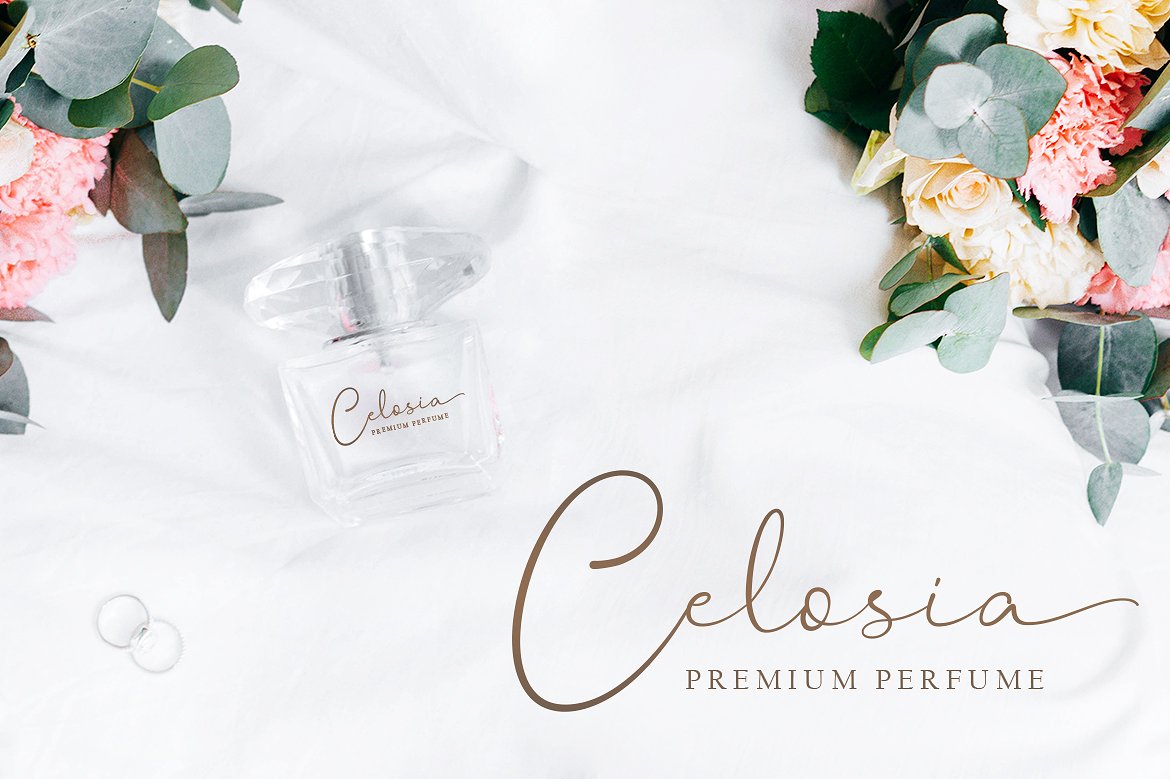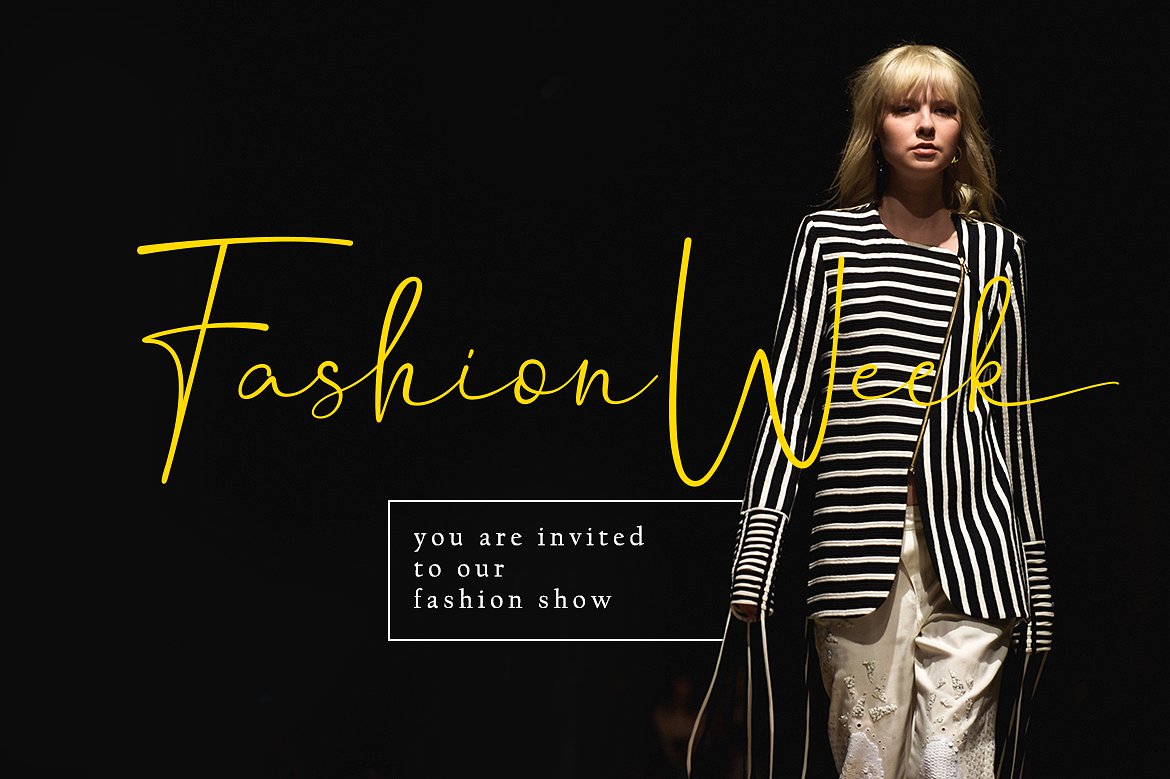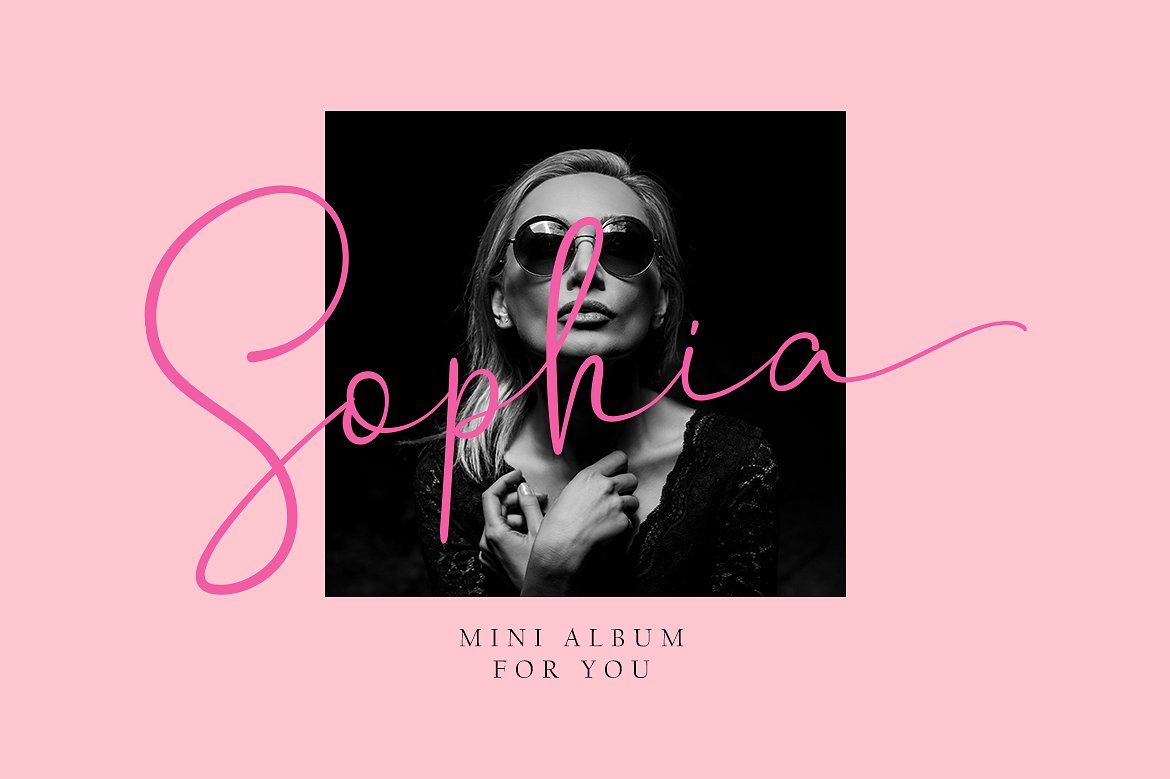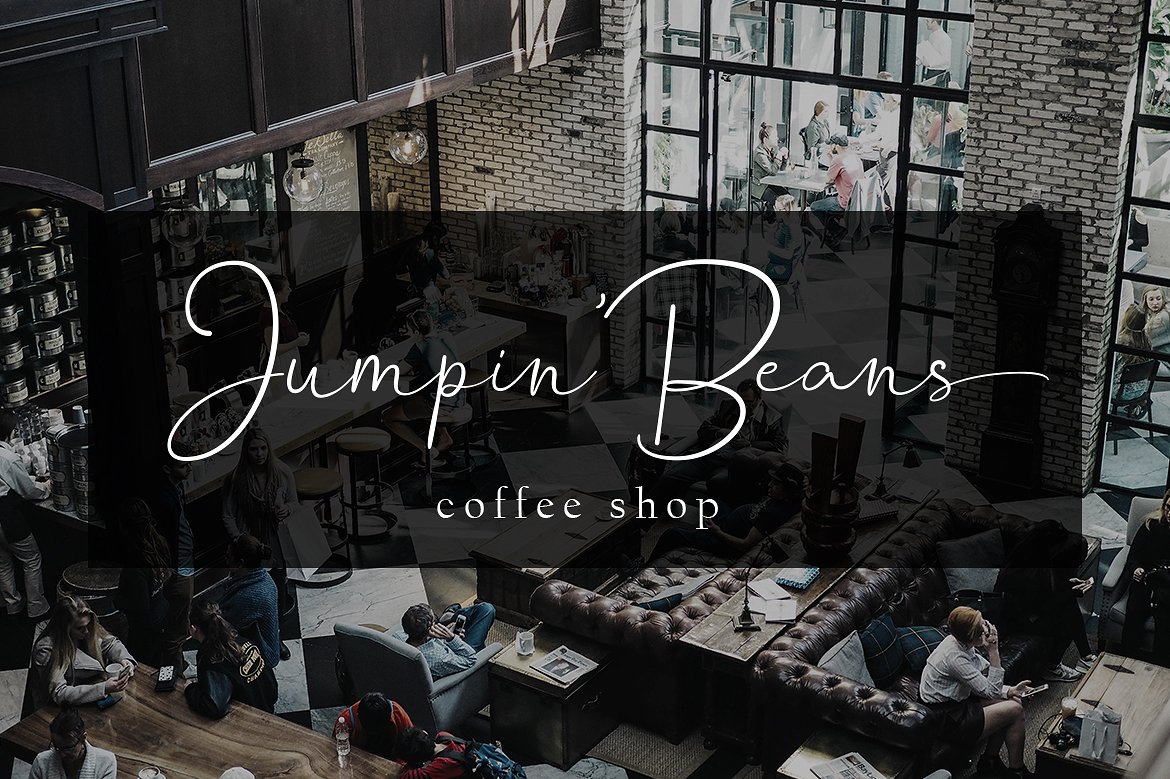
Hanston Signature Font
Hanston Signature Font – Free Demo
Hello There! Font is an inspiration that was born from a desire that wants to create a font that can cause happiness and happiness . Introducing Hanston Signature Font. A font with a touch of modern calligraphy are useful to beautify every sentence written. Hanston is built with opentype features with additional much ligatures and swash at the end so it makes it look natural as written by hand. With various ligatures, thus making it more varied. With modern calligraphy style for your daily and project needs ex: logo, fashion, label, photography watermark, quotes, blog header, poster, wedding, invitation, stationery, branding, letter, etc.